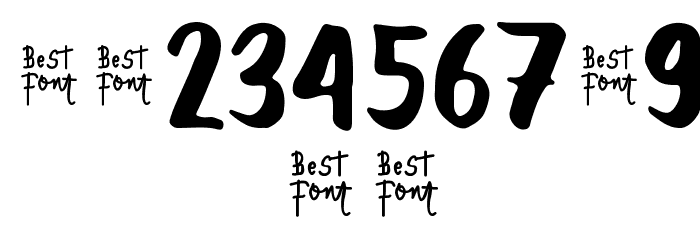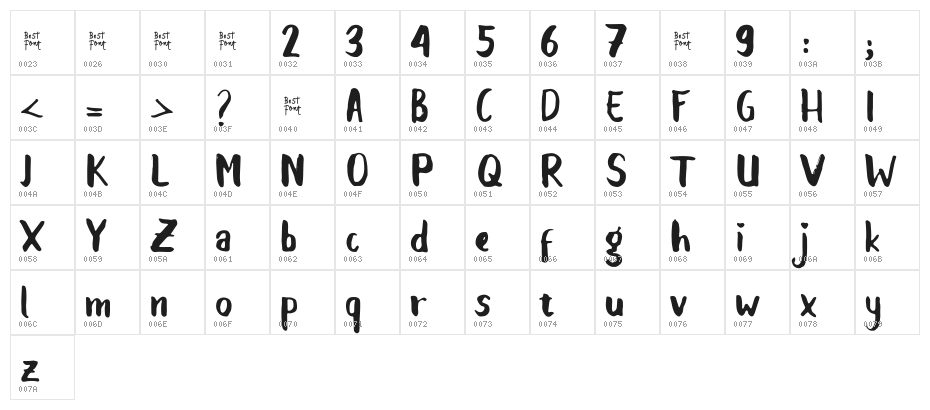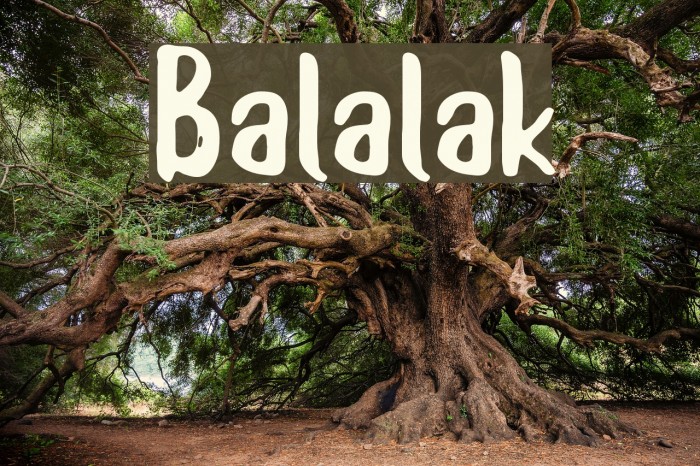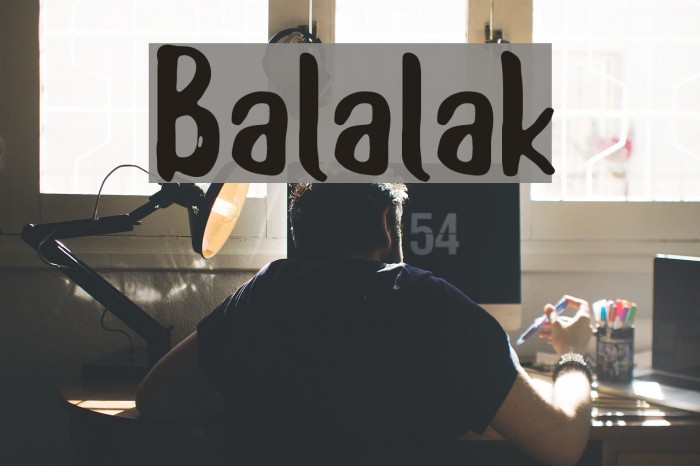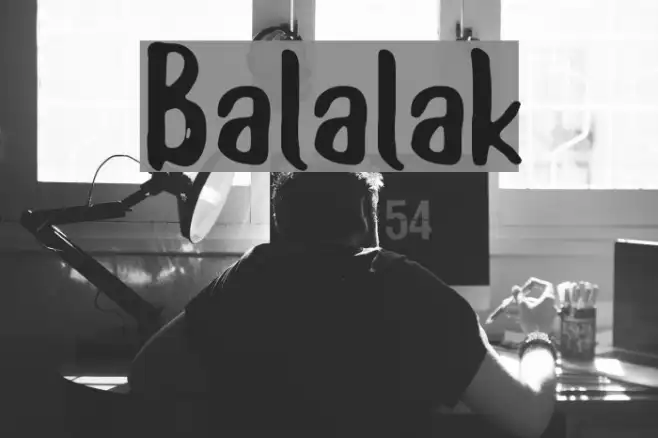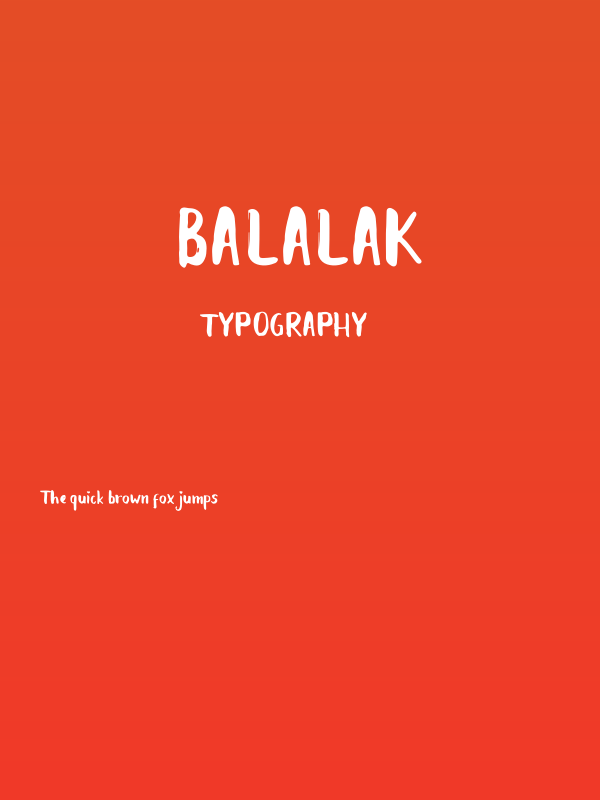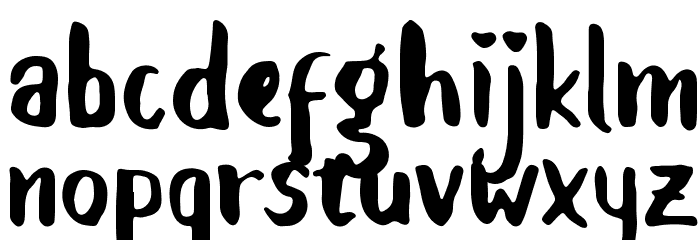
Balalak Font
Balalak Description
This font features a bold and playful style with a hand-drawn appearance. The characters are thick and rounded, giving a friendly and approachable feel. The uppercase and lowercase letters maintain a consistent style, with slight variations that add to the casual, artistic vibe. The numbers are equally bold and maintain the same playful aesthetic. Special characters are included, matching the overall design. This font is ideal for projects that require a fun and informal touch, such as children's books, posters, or creative branding.
| Overall Style | Playful, Artistic |
| Proposed Projects | Children's books, posters, creative branding, casual invitations. |